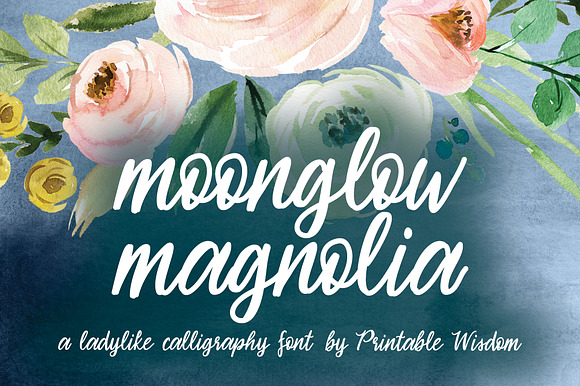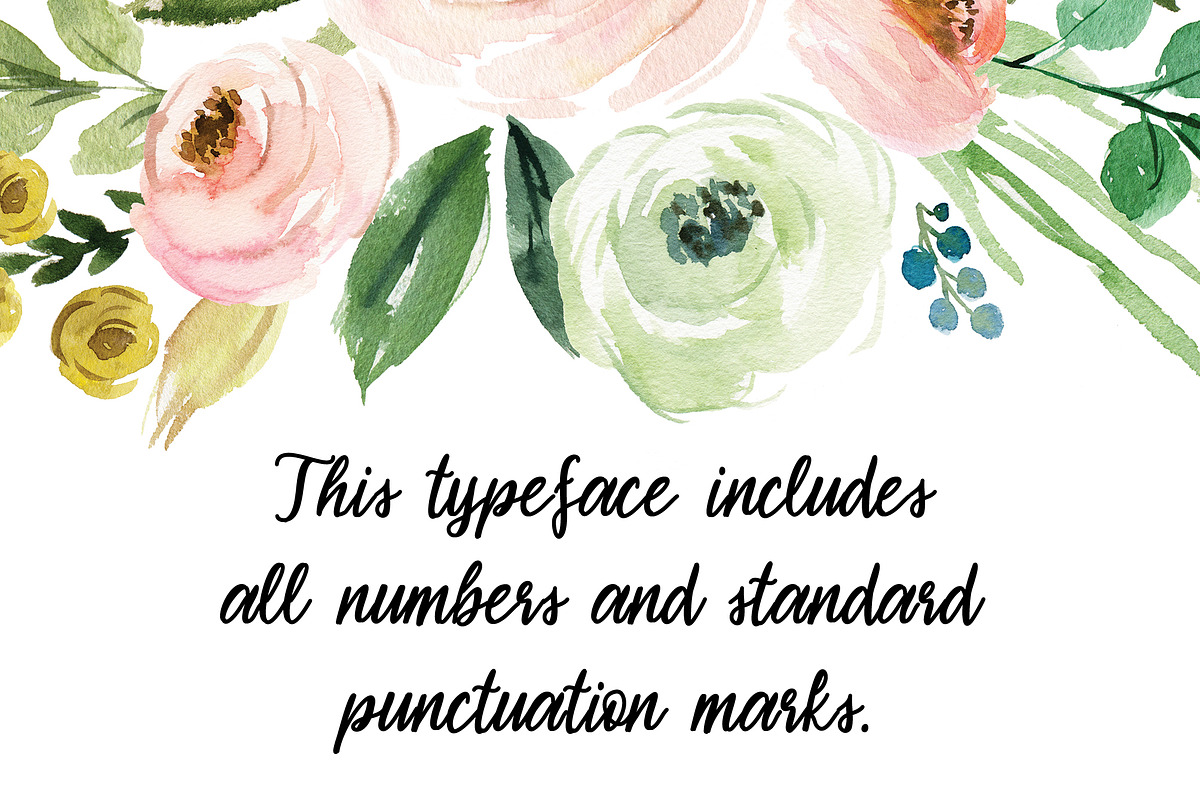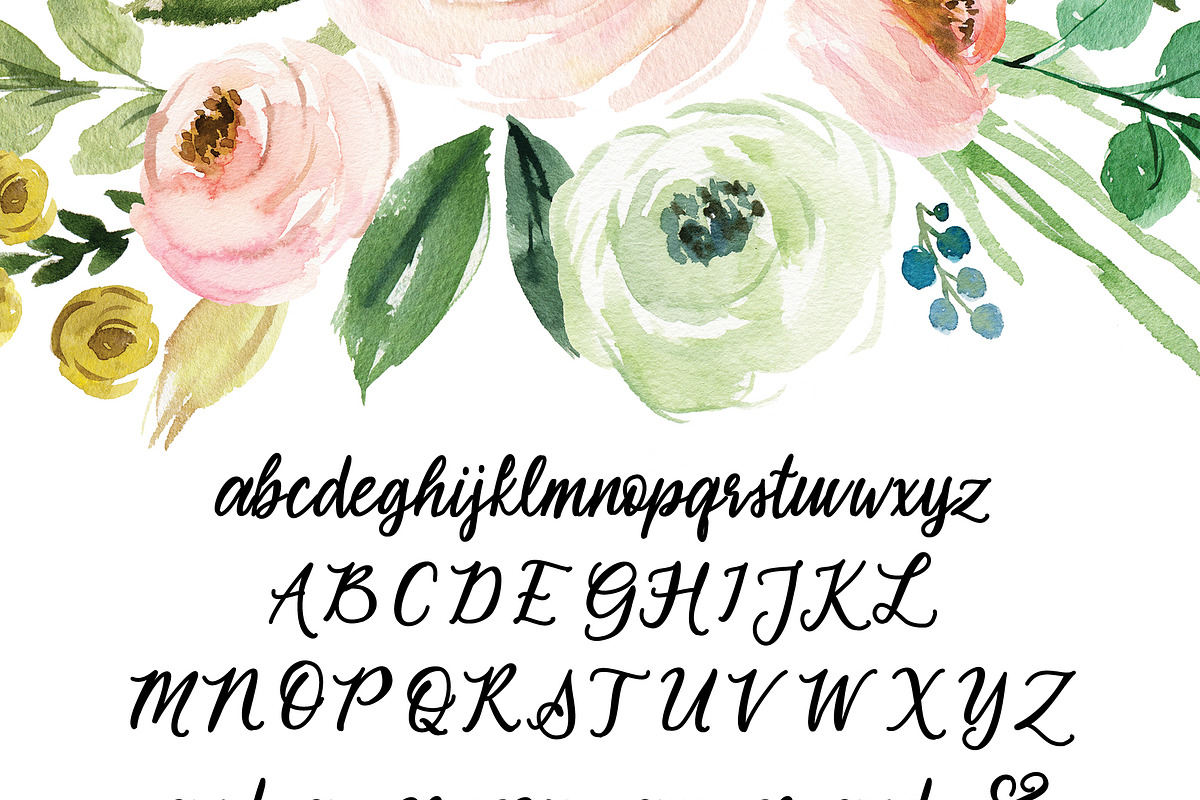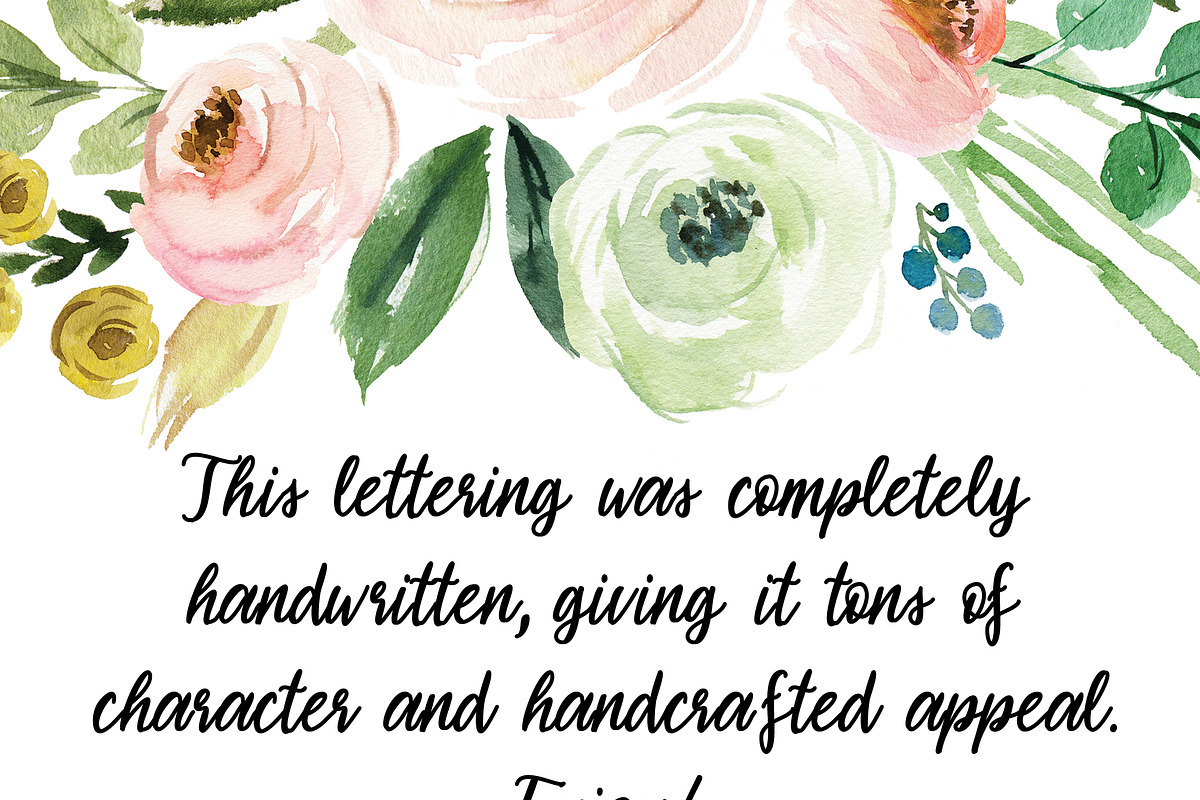
Moonglow Magnolia Font
This calligraphy font was completely hand lettered with tons of character.
- All punctuation and numbers included (along with a gorgeous ampersand!).
Why Moonglow Magnolia Font is worth a look